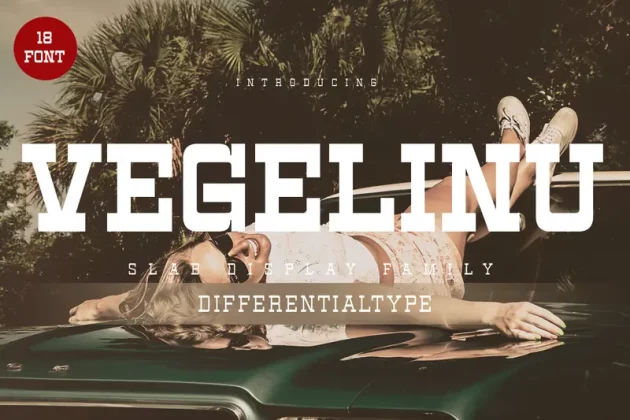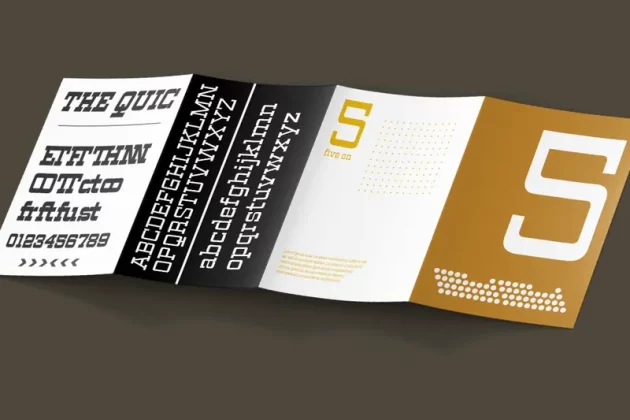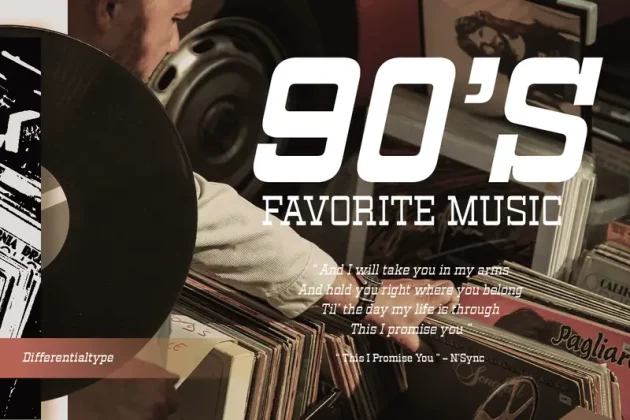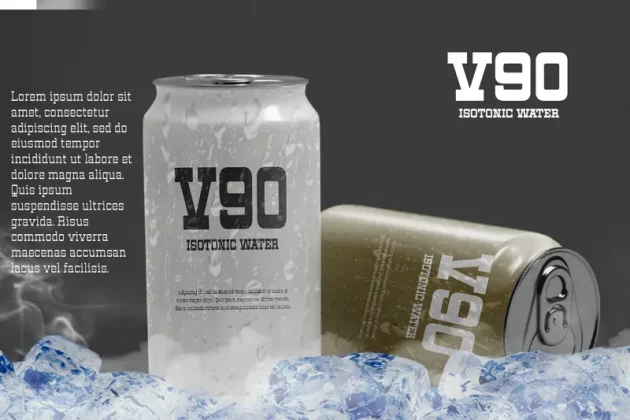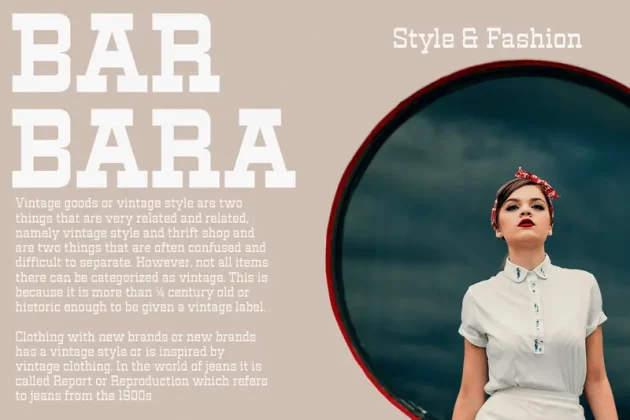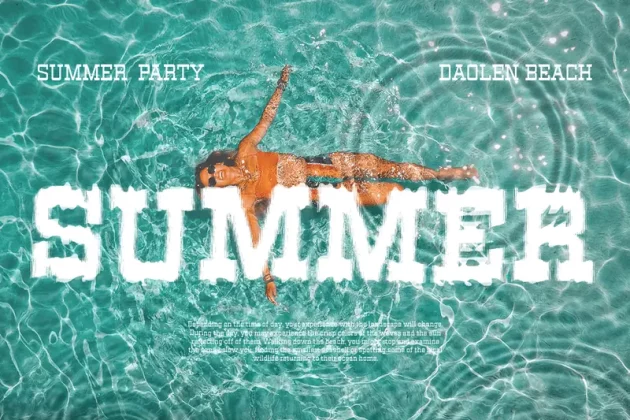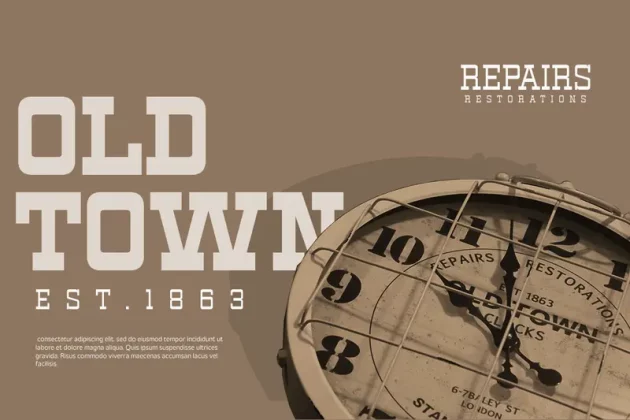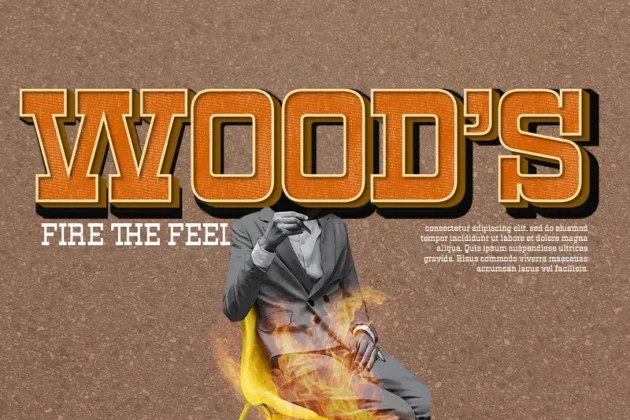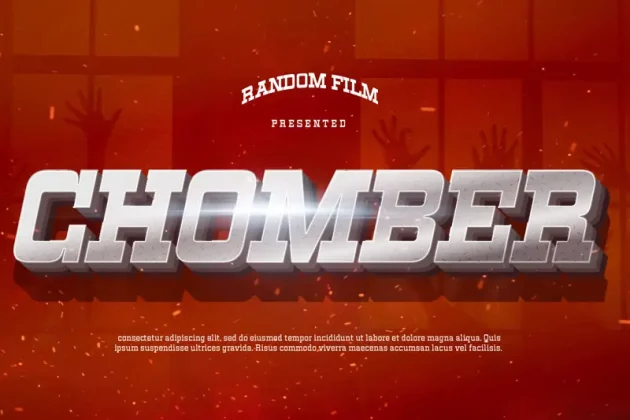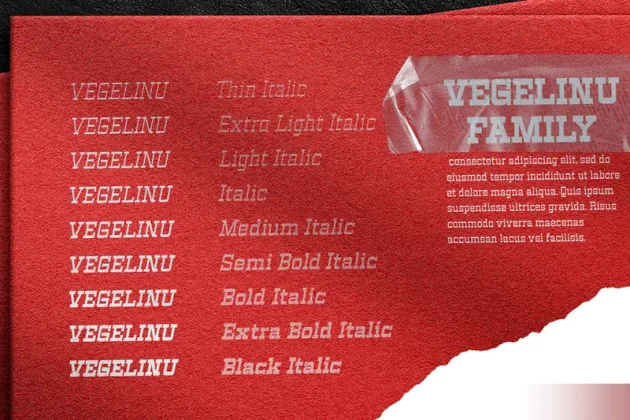
Vegelinu – Slab Display Family Font
About Vegelinu – Slab Display Family Font
Introducing Vegelinu, the multifaceted geometric family display slab that infuses any project with a vintage charm. It’s a testament to the retro aesthetics of the 70s and 80s, designed to bring a splash of nostalgia into your designs. With Vegelinu, you unlock a world of variety – 9 unique weights matched by 9 versatile italics, significantly enriching your design possibilities. Perfectly suited for logo designs, brand styling, emphatic headlines, creative pieces, vivid social media posts, and an array of other applications. Try Vegelinu and let your projects stand out with a touch of timeless elegance.